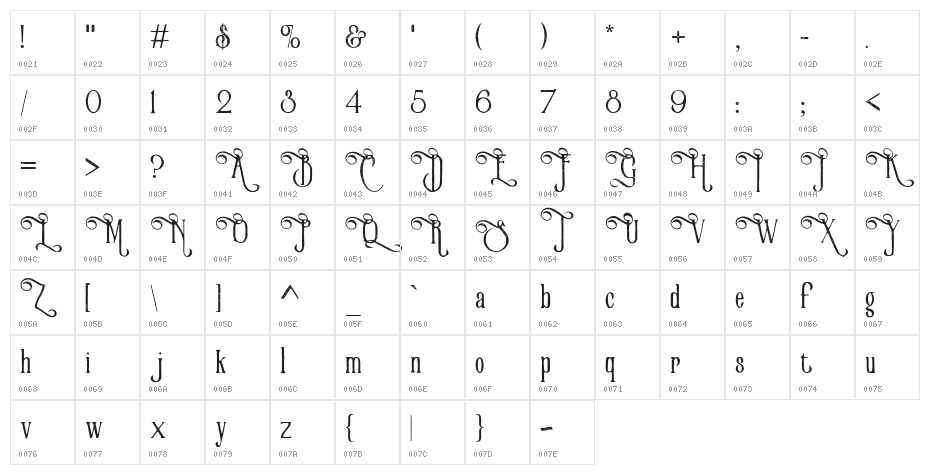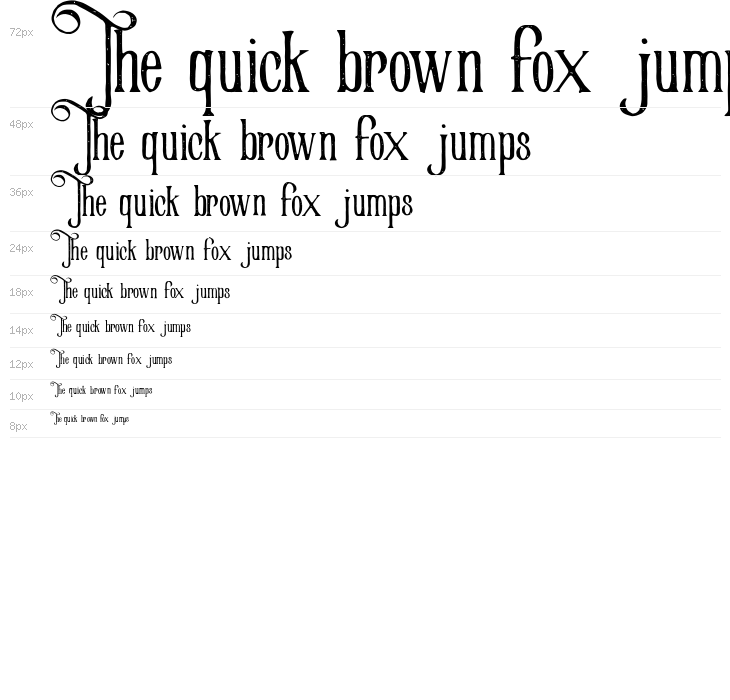
Victorian Parlor Vintage Alternate_free Font
Victorian Parlor Vintage Alternate_free Description
This font exudes a vintage charm reminiscent of the Victorian era, featuring ornate and decorative elements that give it a distinct personality. The uppercase letters are adorned with intricate swirls and loops, adding a touch of elegance and sophistication. The lowercase letters maintain a bold and robust appearance, with a slightly distressed texture that enhances its antique feel. Numbers and special characters are crafted with the same attention to detail, making them suitable for a variety of creative applications. The overall style is both decorative and classic, perfect for projects that require a historical or nostalgic aesthetic.
| Overall Style | Vintage, Decorative |
| Proposed Projects | Ideal for vintage-themed designs, wedding invitations, historical posters, and branding that requires a touch of elegance and nostalgia. |